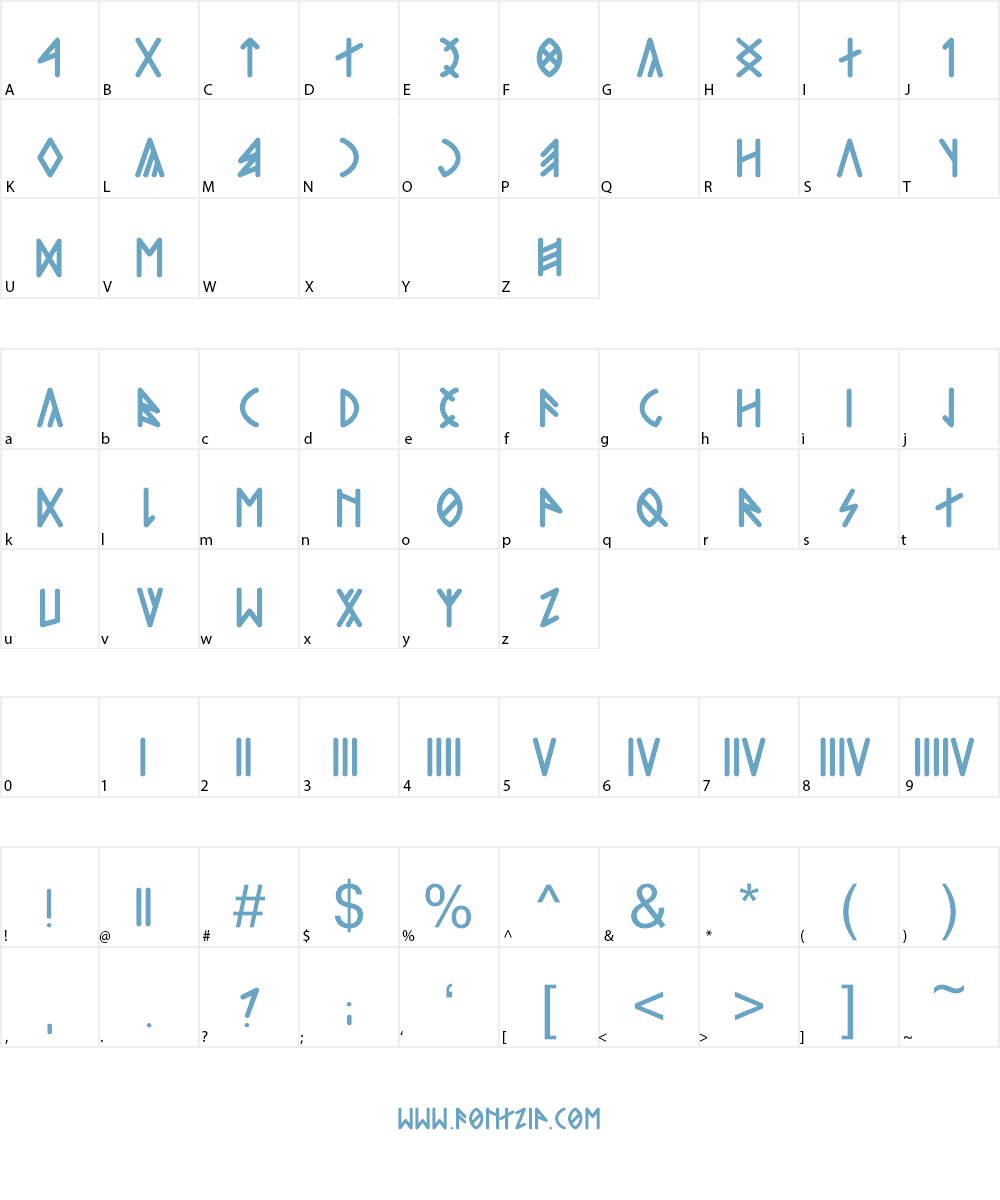
“Telihold”(Fullmoon) is an experimental design, a runic-latin hybrid font with
some educational purpose. Since Szekely-Hungarian runes (rovás)
has no difference in lowercase and capital versions, I used the
lowercase glyphs for the latin look “cheat”, and capitals for the
original runes and their places. I was trying to keep all the cheat
glyphs as original as possible, and choose the closest matches to
each glyph. I made only minor changes in forms, most of them
has just been reflected horizontally/vertically.
For the original rovas, I used the version of Adorján Magyar.